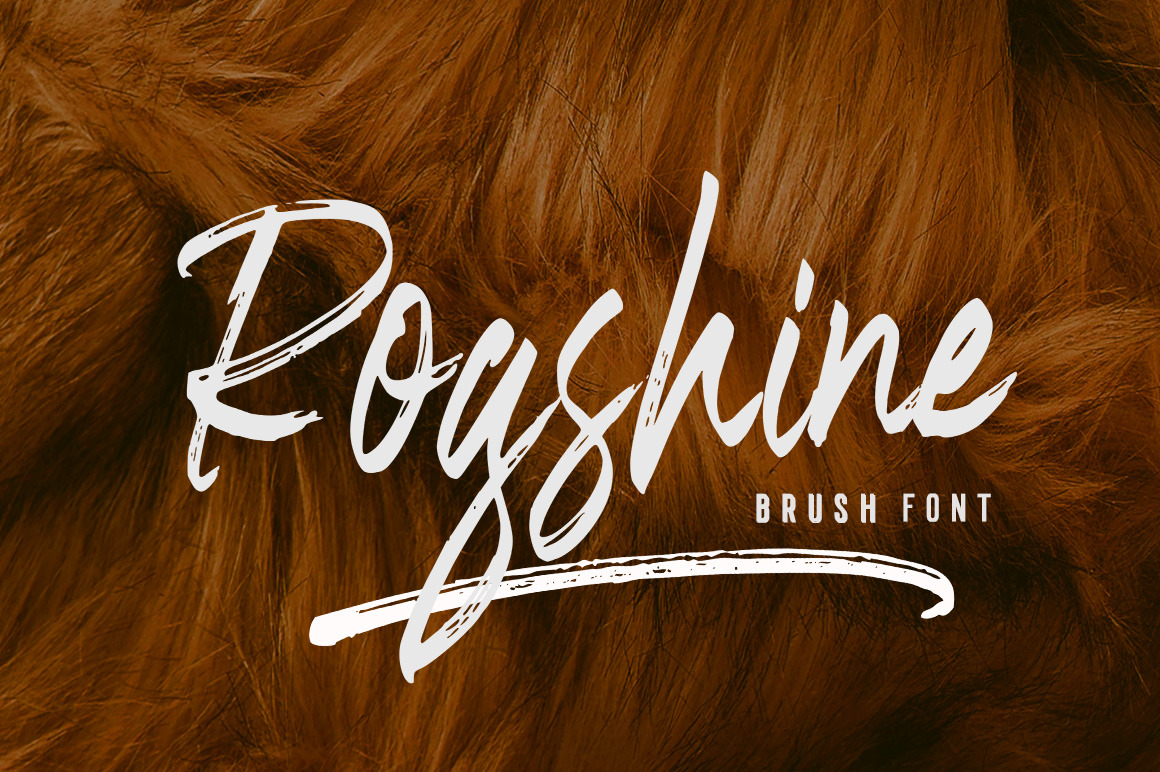
Rogshine is a textured brush font, a contemporary approach to design, handmade naturally with irregular base lines. Suitable for use in title designs such as clothing, invitations, book titles, stationery designs, quotes, branding, logos, greeting cards, t-shirts, packaging designs, posters, and more. Rogshine includes a complete set of upper and lower case letters, as well as multi-language support, numbers, punctuation, binders.